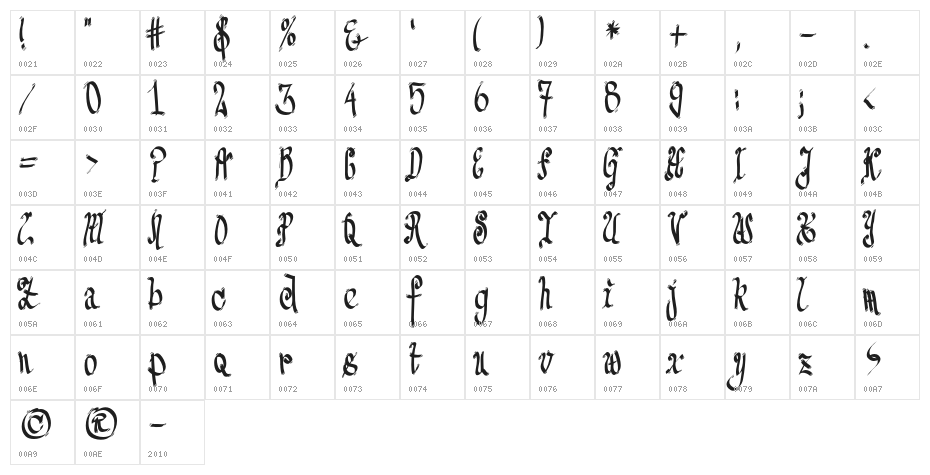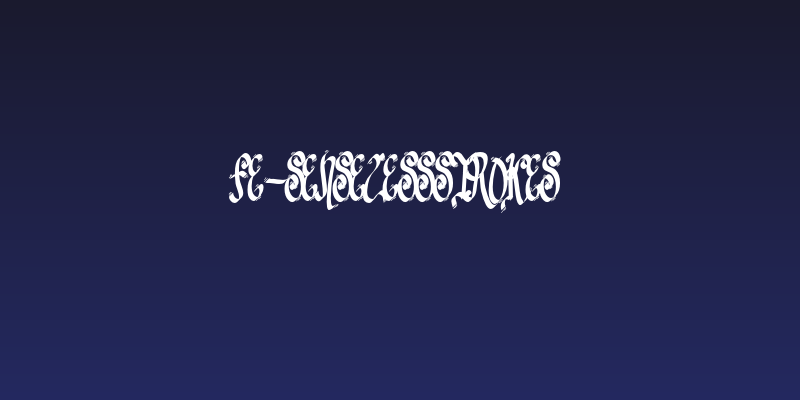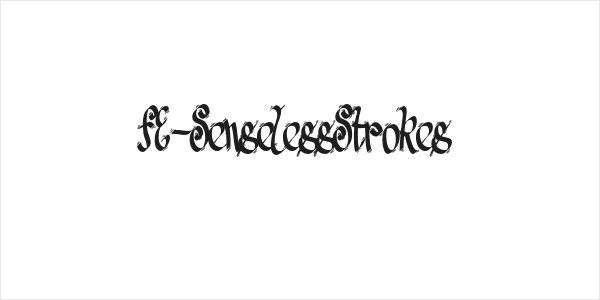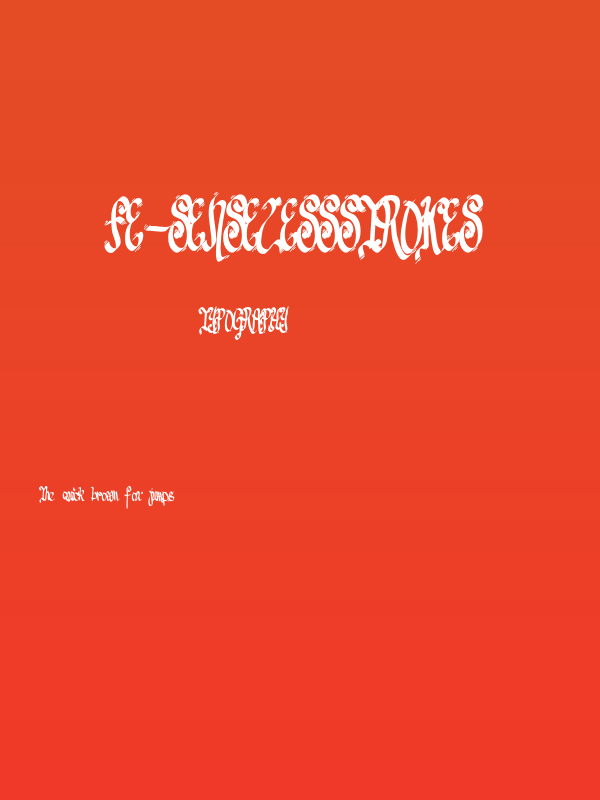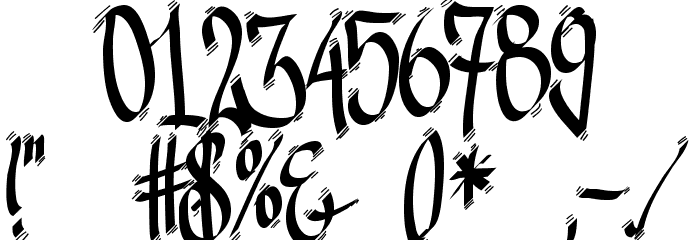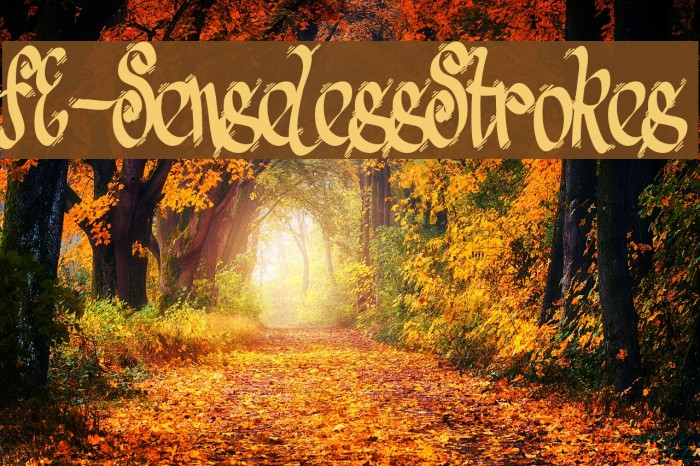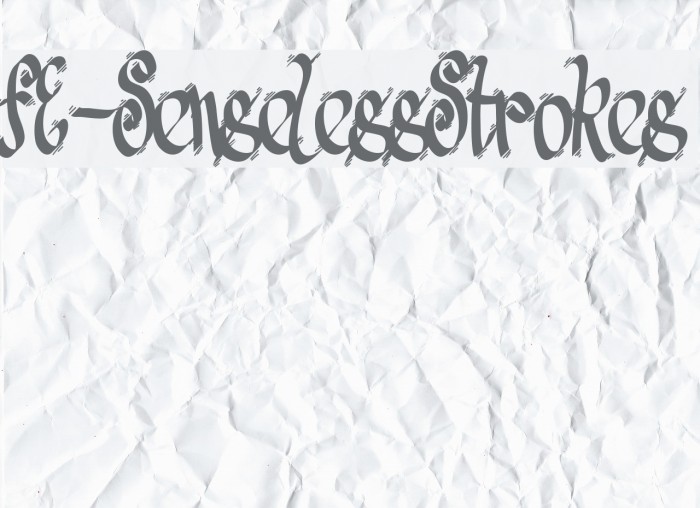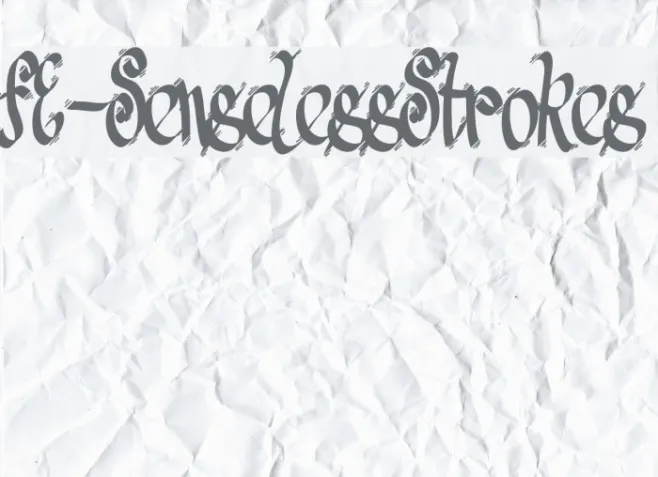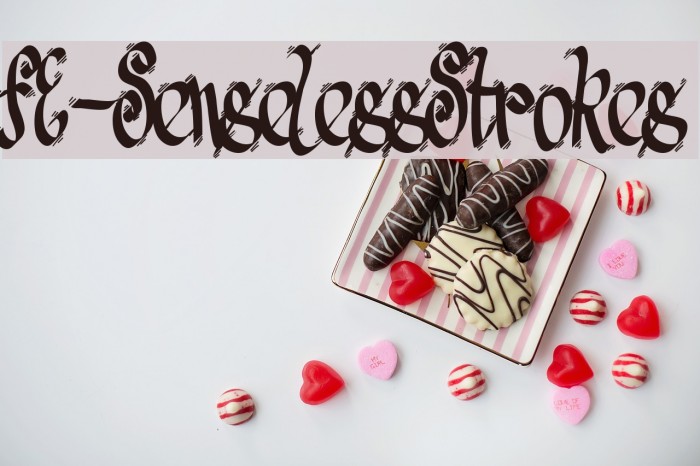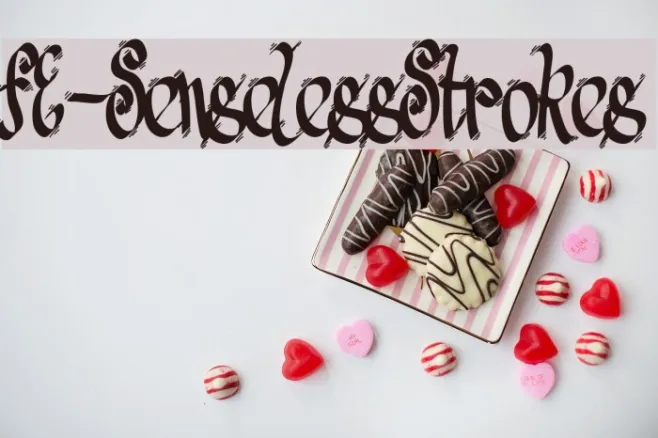
FE-SenselessStrokes Font
FE-SenselessStrokes Description
This font features a highly decorative and expressive style with bold, sweeping strokes that create a sense of movement and energy. The characters are intricately designed with a calligraphic influence, showcasing a blend of sharp angles and smooth curves. The uppercase letters are particularly elaborate, with unique flourishes and extensions that add to the font's dramatic appearance. The lowercase letters maintain a consistent style, offering a more compact yet equally dynamic look. Numbers and special characters are crafted with the same attention to detail, ensuring a cohesive visual experience. This font's artistic flair makes it stand out, ideal for projects that require a bold and creative touch.
| Proposed Projects | Ideal for artistic projects, branding, posters, and any design requiring a bold, creative touch. |